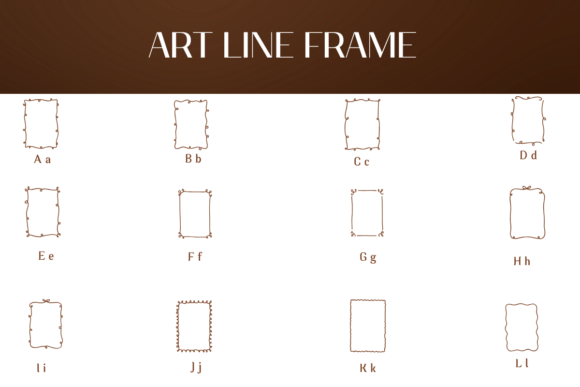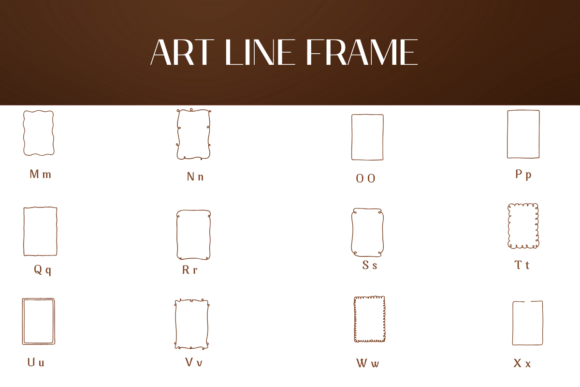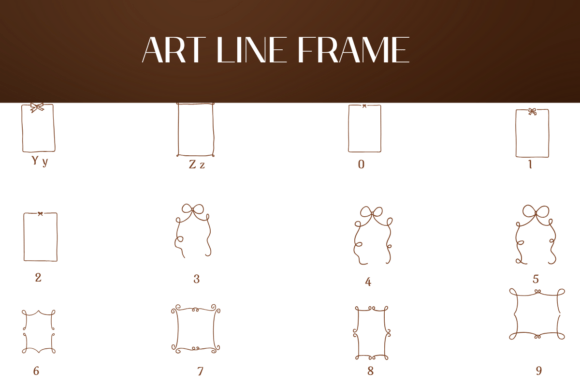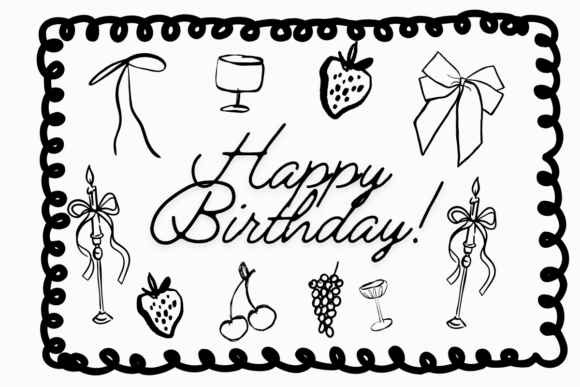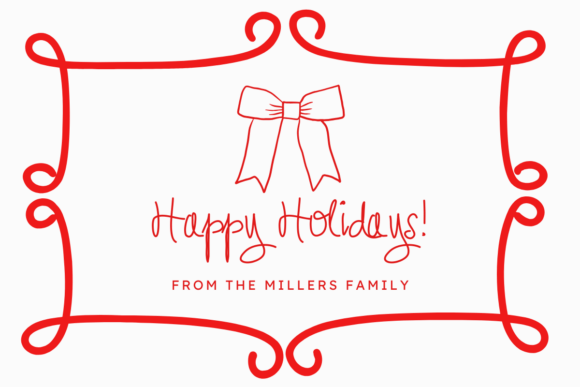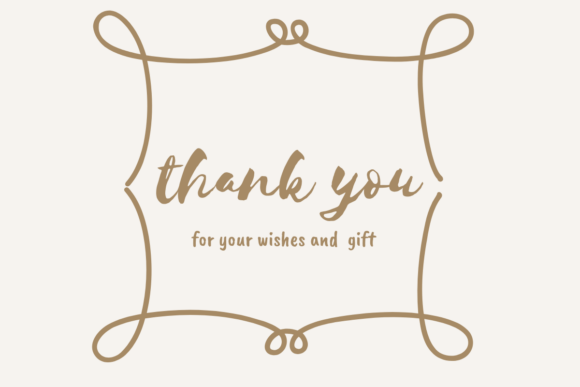
The Art of Adding a Personal Touch: Discovering the Art Line Frame Font
I’ll never forget the time I was working on a digital scrapbooking project for a friend’s wedding. I had all the photos, journaling, and embellishments ready, but something was missing. That’s when I stumbled upon the Art Line Frame font, a game-changing dingbats font that features a collection of decorative hand-drawn frames in various whimsical and elegant styles. It was exactly what I needed to add that charming finishing touch to my layout.
So, what makes the Art Line Frame font so special? Let’s dive into the details.
- ✨ Variety of styles: From whimsical to elegant, this font offers a wide range of frame styles to suit any project or theme.
- ✅ Easy to use: With its OpenType features and glyphs, incorporating these frames into your design is a breeze.
- 💕 Customizable: Experiment with different colors, sizes, and arrangements to make the frames truly yours.
- 📚 Multipurpose: Perfect for invitations, journaling, digital scrapbooking, social media posts, and educational materials.
While the Art Line Frame font is amazing, there are a few things to keep in mind:
- 🤔 Some frames may not work well at small sizes. Be sure to test them out before committing to a specific design.
- ⚠️ Occasional inconsistencies in stroke widths or line quality, but these are minor and don’t detract from the overall charm.
The Story Behind Art Line Frame
The Art Line Frame font was created with the intention of providing designers, crafters, and hobbyists with a versatile tool for adding a personal touch to their projects. Inspired by traditional art and hand-drawn illustrations, this font brings a sense of whimsy and elegance to any design. Whether you’re working on a digital scrapbooking project or creating educational materials, Art Line Frame is sure to become a favorite in your collection.
Q: What type of projects can I use Art Line Frame for?
A: Art Line Frame is perfect for a wide range of projects, including invitations, journaling, digital scrapbooking, social media posts, and educational materials.
Q: Can I combine Art Line Frame with other fonts?
A: Absolutely! Art Line Frame pairs well with a variety of fonts. Experiment with different combinations to find the perfect match for your project.